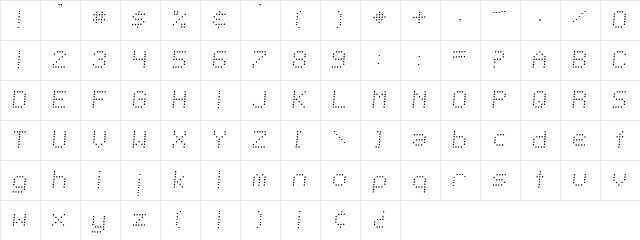
Telegraphic Light Italic Font Preview
Design Context for Telegraphic Light Typeface
Telegraphic Light takes a measured approach to typography — its balanced proportions and neutral character make it a reliable workhorse for both digital and print work. The dynamic lean of this cut emphasises speed and emphasis in any layout. Its slender proportions lend an understated elegance to any composition.